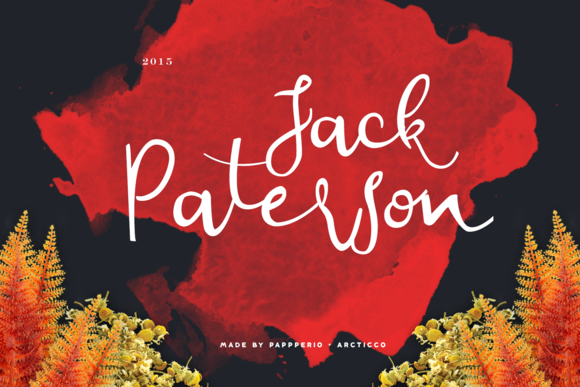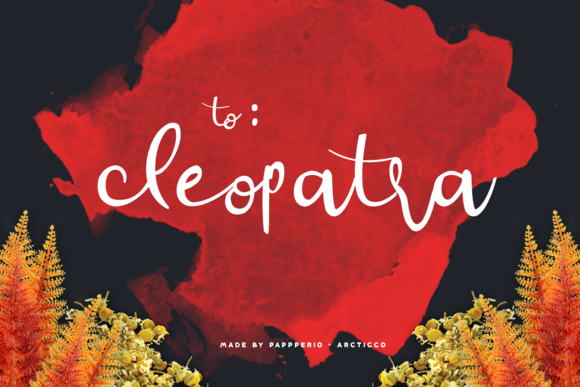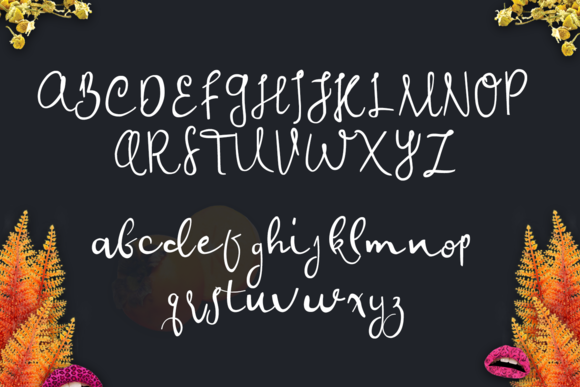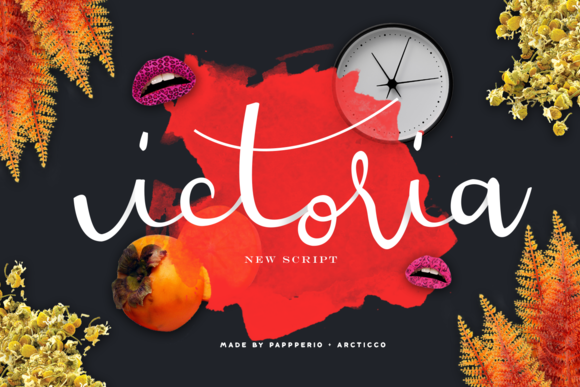
Victoria
Victoria Script Font
Victoria Script is handwritten standard calligraphy fonts, unusual style, classic and elegant touch. Can be used for various purposes, such as headings, signature, logos, wedding invitation, t-shirt, letterhead, signage, lable, news, posters, badges etc.